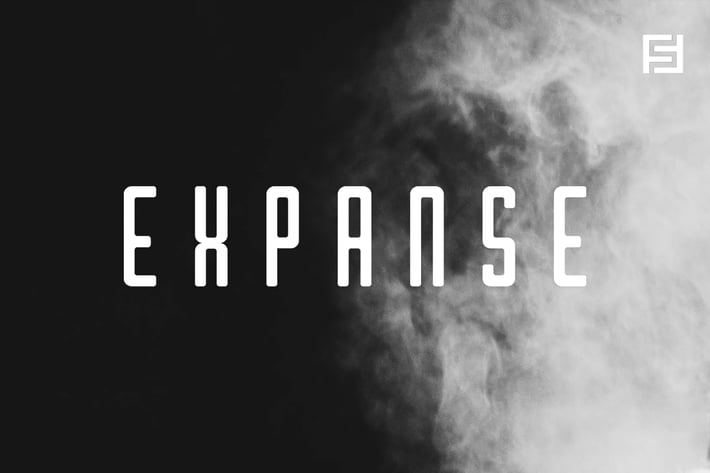
EXPANSE - Unique Display / Headline Typeface
Expanse is a unique display typeface perfect for headlines, big text, branding, logotypes & display usage. This all-caps typeface can be an excellent choice for creating outstanding logos, promotional content, and marketing graphics that can bring uniqueness and freshness at its level best.
The typeface will be perfect for creating unique monograms, logos, and identities with these combinations. Please see the examples shown above to get an idea of the capability of this typeface.
The typeface comes with Extended Latin character sets including Western European, Central European, and South-Eastern European character sets (total of 252 glyphs).
Font designed by Lis at Fontastica, distributed by Designova.